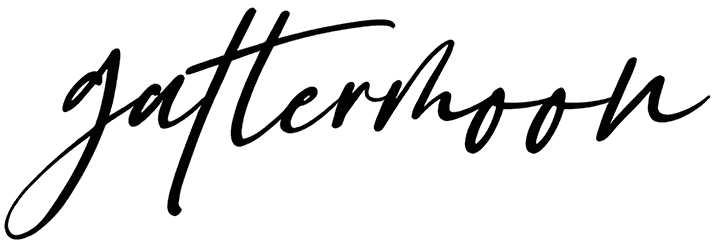
Gattermoon Font
Gattermoon is one of those handwritten fonts that, despite not having capital letters and numbers, can still play a role in many projects. This script font has connecting letters that require concentration to be read, just like real handwriting.
That’s why it can instill a natural feeling in your writing and make any viewer captivated for a few seconds. Using it, you can design wedding cards, congratulatory messages, and special packages that give a sense of intimacy to your audience.
Gattermoon Handwritten Signature Font